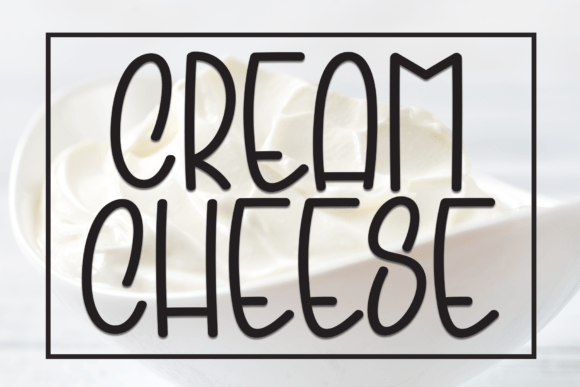
Adding a Touch of Warmth to Your Designs
There’s nothing quite like the feeling of stumbling upon the perfect font for a project. You know, that moment when all the pieces fall into place and your design starts to come alive. For many designers, this moment often begins with a search for a font that perfectly captures the tone and personality of their brand or message. And if you’re looking for a font that embodies warmth, approachability, and a dash of modern charm, you might just find yourself smitten with the Cream Cheese Font.
This delightful display font is designed to bring a friendly and inviting vibe to any design, making it perfect for branding, headlines, packaging, and digital content. With its clean lines, balanced letterforms, and subtle rounded edges, the Cream Cheese Font is a versatile and valuable addition to any designer’s toolkit.
Cream Cheese Font Key Features
- Font Family: A unique, modern sans-serif font with a creamy texture, designed to evoke the feel of cream cheese.
- Language Support: Supports a wide range of languages, including Latin, Cyrillic, Greek, and many others, making it suitable for global branding and design projects.
- Unique Characteristics: Features a distinctive, creamy texture that adds a touch of warmth and sophistication to any design, perfect for use in food, beverage, and lifestyle branding.
Designer Review: Cream Cheese Font
Overall, I think the Cream Cheese Font is a fun and playful addition to any design project. ✨ The rounded edges and soft curves give it a friendly and approachable feel that’s perfect for food-related branding or packaging.
One of the things I appreciate about this font is its versatility. ✨ It works well in both small and large sizes, and can be used for a variety of purposes from headlines to body text. The font also has a nice range of weights, from light to bold, which allows for a lot of flexibility in terms of styling.
However, I do think there are some limitations to the Cream Cheese Font. ⚠️ The font’s rounded edges can sometimes make it difficult to read, especially in smaller sizes or at a distance. Additionally, the font may not be the best choice for formal or professional branding, as it has a more casual and playful feel.
Overall, I would recommend the Cream Cheese Font for designers looking to add a bit of whimsy and personality to their projects. Just be sure to use it in a way that feels authentic and consistent with your brand’s tone and style.
- Works well for food-related branding or packaging
- Versatile and can be used for a variety of purposes
- Range of weights for flexibility in styling
- Can be difficult to read in small sizes or at a distance
- May not be suitable for formal or professional branding
Cream Cheese Font Practical Application Guide
The Cream Cheese font is ideal for creating playful and whimsical designs. Use it for:
- Food and dessert labels.
- Quirky social media posts and graphics.
Remember to experiment with font sizes, colors, and styles to get the most out of the Cream Cheese font.
Alternatives to Cream Cheese Font for Designers
Lato is a modern sans-serif typeface designed by Łukasz Dziedzic. It’s a great alternative to Cream Cheese Font for body text and headings in digital and print media. Lato is more legible and has a cleaner design compared to Cream Cheese Font, making it suitable for long-form content and large blocks of text.
Comparison: Lato is more modern and minimalistic compared to Cream Cheese Font, with a more open and airy feel.
Montserrat is a sans-serif typeface designed by Julieta Ulanovsky. It’s a great alternative to Cream Cheese Font for titles and headings in digital and print media. Montserrat is more geometric and modern compared to Cream Cheese Font, making it suitable for bold and eye-catching typography.